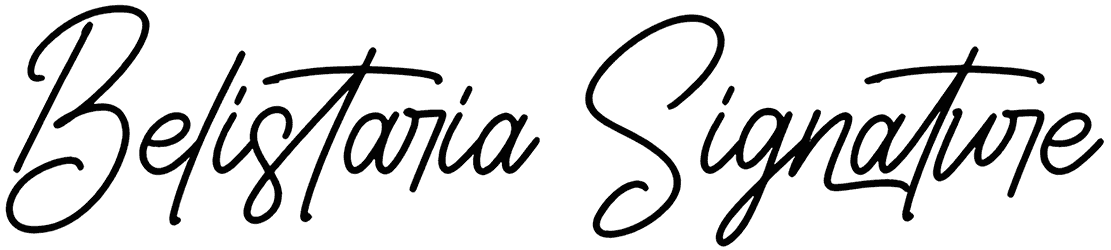
Belistaria Signature Font
Belistaria Signature provides everything you, a handwritten font lover, dream of. With capillary pen lettering, this signature font could lay out your next invitation design, flyer, product logo, or more of the same. Owning full A-Z characters in two versions will give you a satisfying chance to embellish words and be modern and salient.